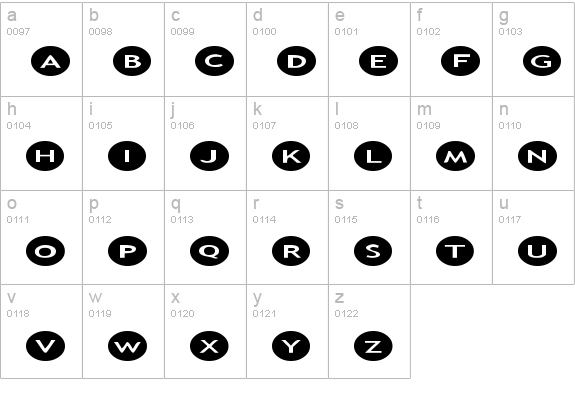
The AlphaShapes ovals 2 font is a beautifully crafted typeface that adds a touch of elegance and sophistication to any design project. Its rounded, oval-shaped letters exude a modern and stylish vibe, making it perfect for a wide range of creative applications. This unique font is versatile and eye-catching, making it ideal for logos, branding, headlines, and more. Its smooth curves and clean lines give it a sleek and contemporary look that is sure to capture attention. Best of all, the AlphaShapes ovals 2 font is available for free download at FontsMarket.com. Whether you're a designer looking to add a fresh twist to your projects or just someone who appreciates high-quality typography, this font is a must-have in your collection. Download it today and take your designs to the next level!